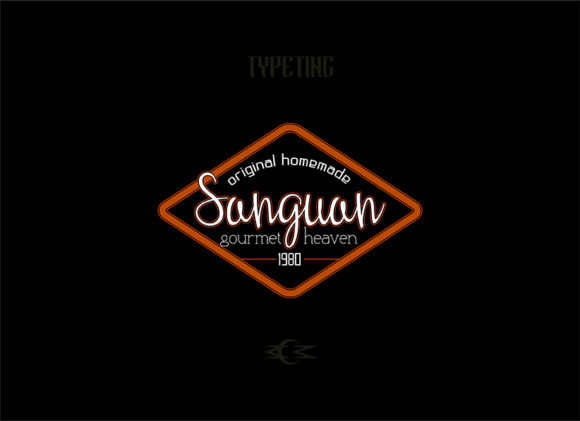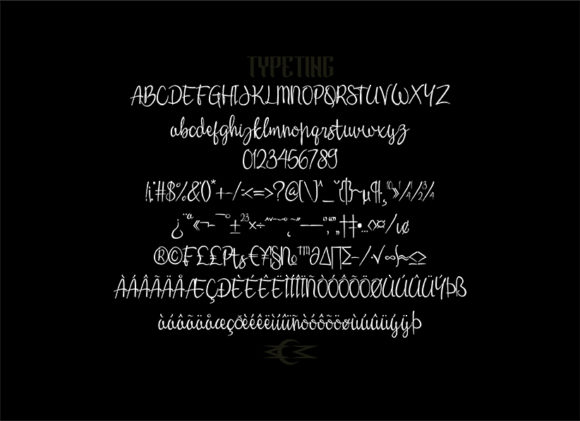
Widaningsih Font
About Widaningsih Font
Widaningsih is a simple and elegant script font with an authentic approach to design. Get inspired by its unique charm!